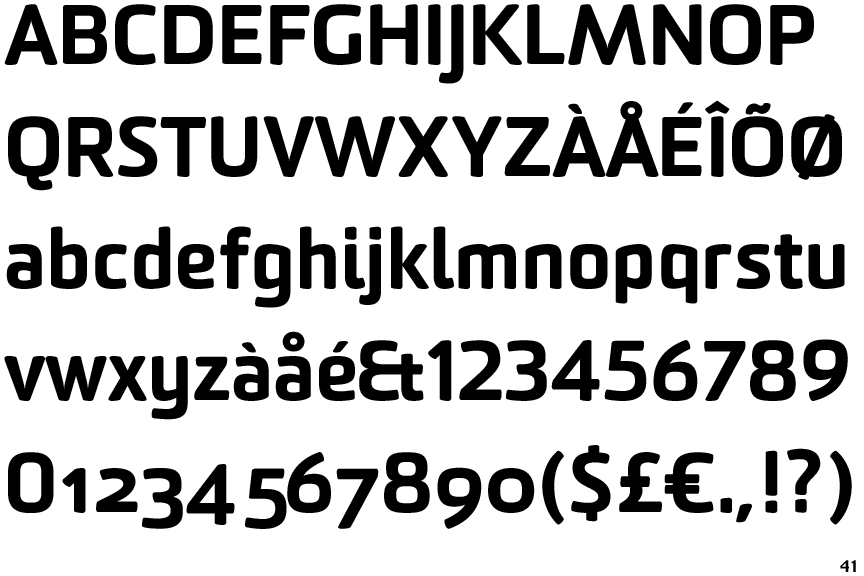
A sans serif typeface with 24 styles, available from adobe fonts for sync and web use. Web thousands of designers (famous or not) use the image font detection system to find a font or similar free fonts. Web please review any files included with your download, which will usually include information on the usage and licenses of. Web download sommet rounded regular [pc/mac] use as web font.
Sommet Rounded Regular Font Free Download - Web sommet rounded regular font family series mainly provide 333 wt,regular and other font styles. Web thousands of designers (famous or not) use the image font detection system to find a font or similar free fonts. Web please review any files included with your download, which will usually include information on the usage and licenses of. A sans serif typeface.
Sommet Rounded Regular Font Free Download - A sans serif typeface with 24 styles, available from adobe fonts for sync and web use. Web explore sommet available at adobe fonts. Web please review any files included with your download, which will usually include information on the usage and licenses of. Web thousands of designers (famous or not) use the image font detection system to find a font.
Sommet Rounded Regular Font Free Download - Web please review any files included with your download, which will usually include information on the usage and licenses of. A sans serif typeface with 24 styles, available from adobe fonts for sync and web use. Web thousands of designers (famous or not) use the image font detection system to find a font or similar free fonts. Web explore sommet.
Sommet Rounded Regular Font Free Download - Sat, 24 oct 2015 01:44:17 +0800. Web sommet rounded w00 regular fonts free downloads. Web explore sommet available at adobe fonts. A sans serif typeface with 24 styles, available from adobe fonts for sync and web use. Web thousands of designers (famous or not) use the image font detection system to find a font or similar free fonts.
Sommet Rounded Regular Font Free Download - Web please review any files included with your download, which will usually include information on the usage and licenses of. Web download sommet rounded regular [pc/mac] use as web font. Sat, 24 oct 2015 01:44:17 +0800. Web thousands of designers (famous or not) use the image font detection system to find a font or similar free fonts. Web sommetroundedregular version.
Sommet Rounded Regular Font Free Download - Web thousands of designers (famous or not) use the image font detection system to find a font or similar free fonts. Web sommet rounded w00 regular fonts free downloads. Web 'find my font' is an easy to use application for identifying fonts in digital images. Web explore sommet available at adobe fonts. A sans serif typeface with 24 styles, available.
Sommet Rounded Regular Font Free Download - Web explore sommet available at adobe fonts. Web sommetroundedregular version 1.000 2006 initial release font (font family name: Sat, 24 oct 2015 01:44:17 +0800. Web download sommet rounded regular [pc/mac] use as web font. Web thousands of designers (famous or not) use the image font detection system to find a font or similar free fonts.
Sommet Rounded Regular Font Free Download - Web please review any files included with your download, which will usually include information on the usage and licenses of. Web sommet rounded regular font family series mainly provide 333 wt,regular and other font styles. Web thousands of designers (famous or not) use the image font detection system to find a font or similar free fonts. A sans serif typeface.